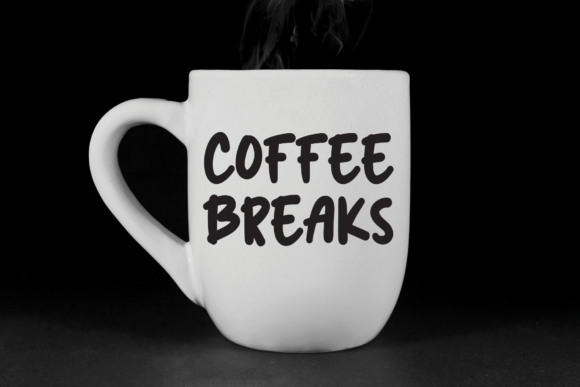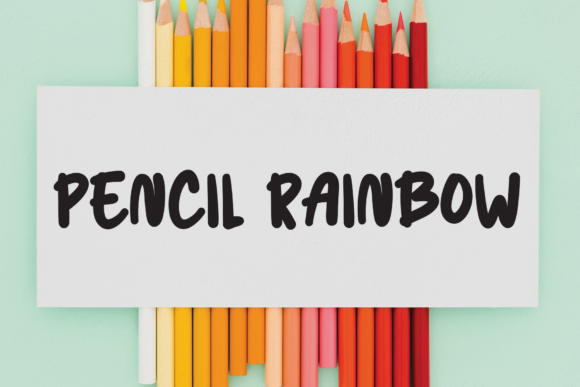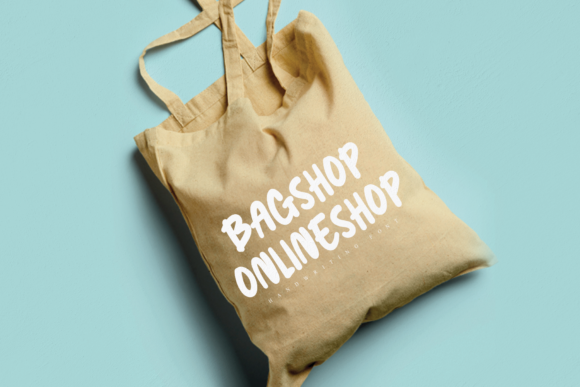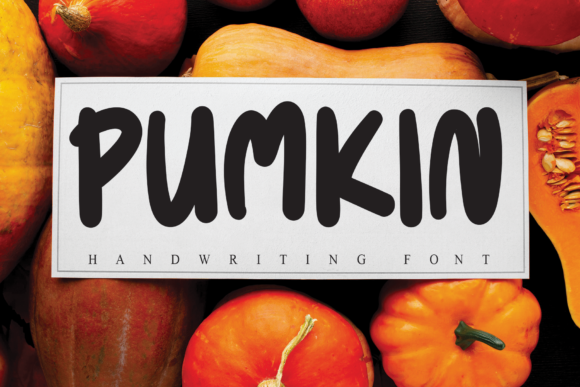
Introduction to Myhero Font
Myhero is a fun, bubbly and friendly display font.
It embodies playfulness and authenticity and is the perfect choice for any children activity or school project .